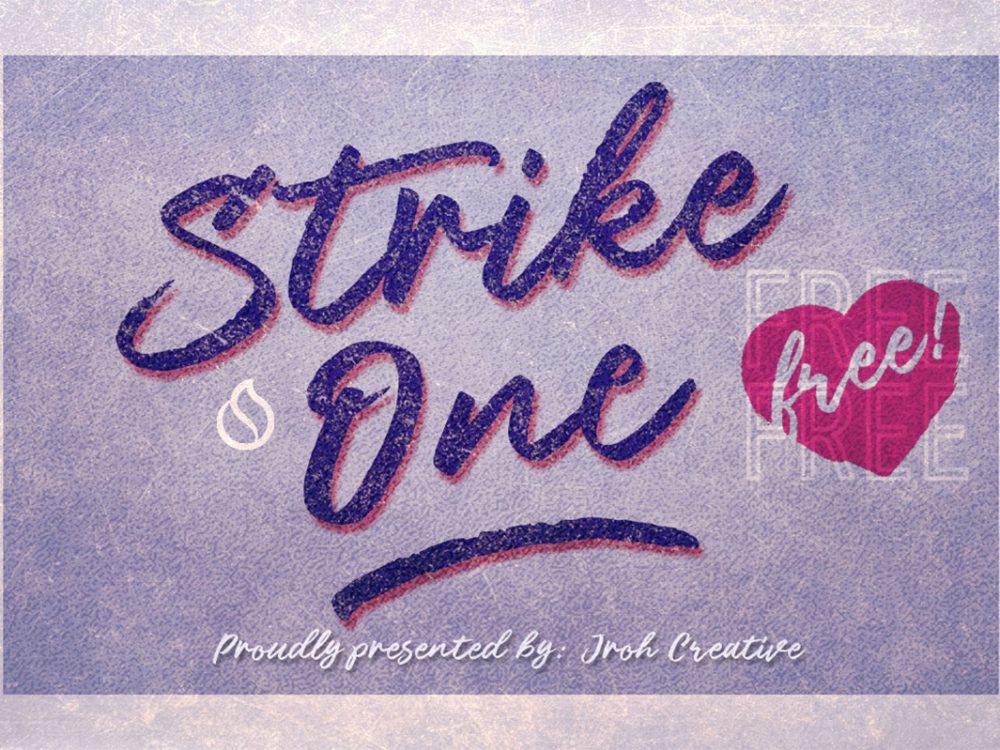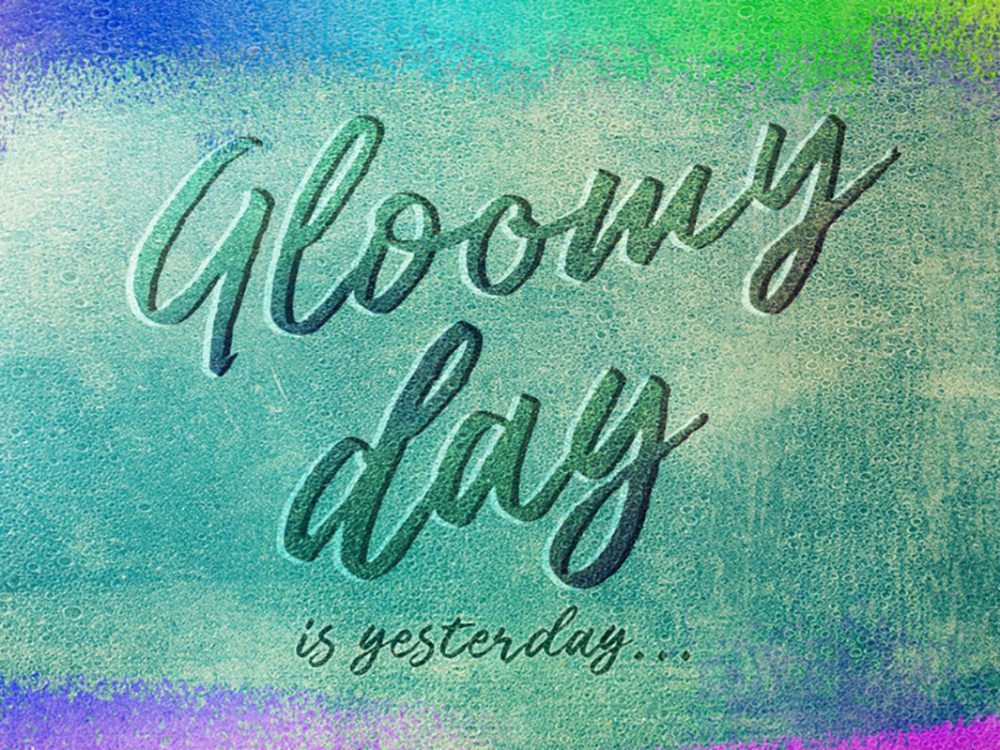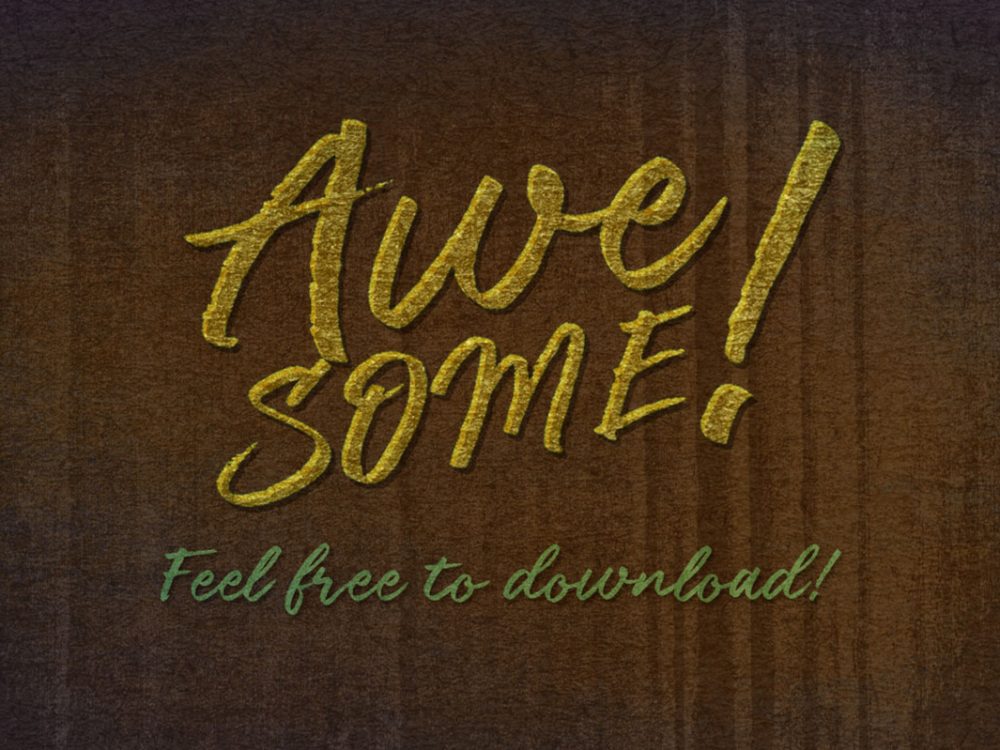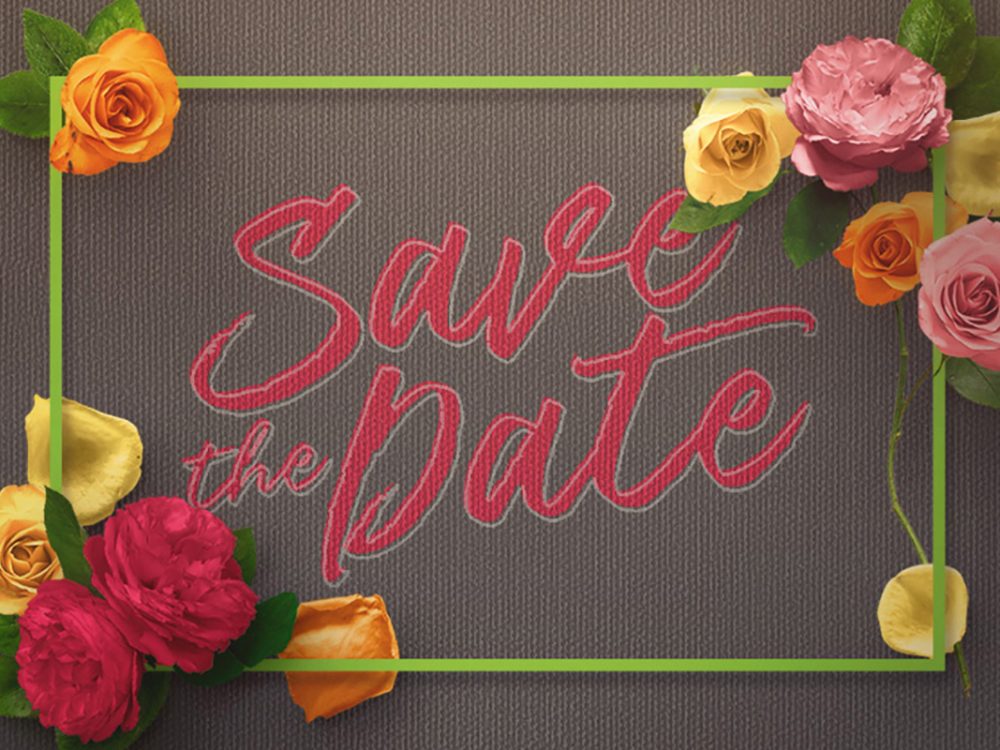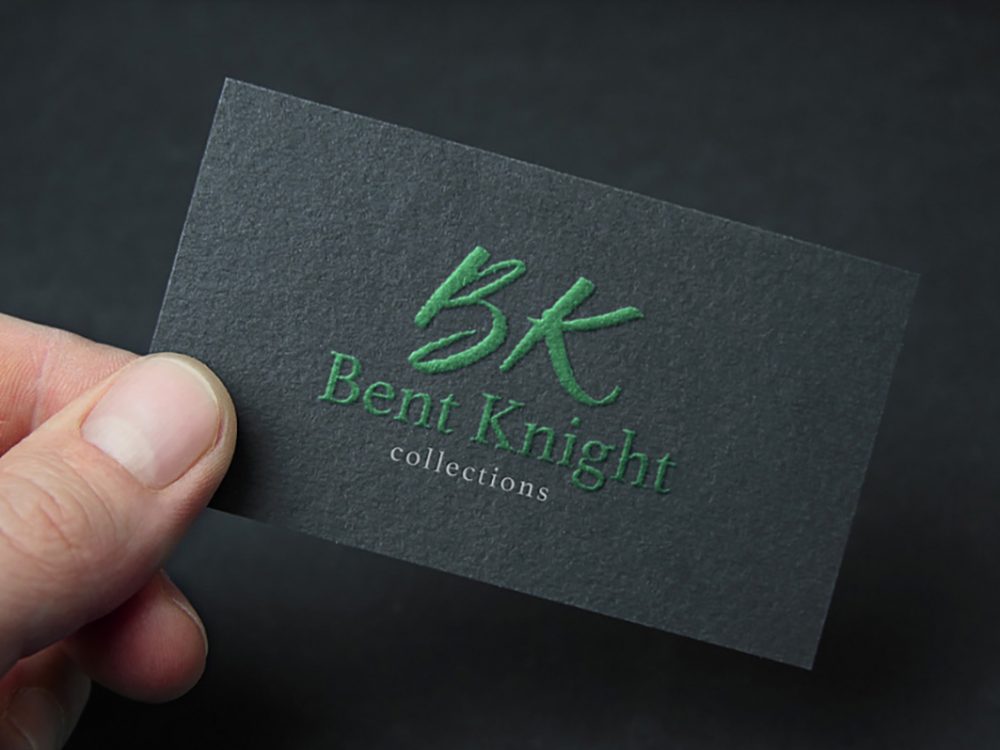
Strike One Script Free Font
Brings your attention to Strike One Script Free Font. This is a beautiful and interesting free handwritten font that will be able to profitably represent many of your design projects that require an elegant script font. You can use this font to create vintage-style posters, wedding invitations, cards, branding, flyers, prints, and more.
Author: JROH Creative